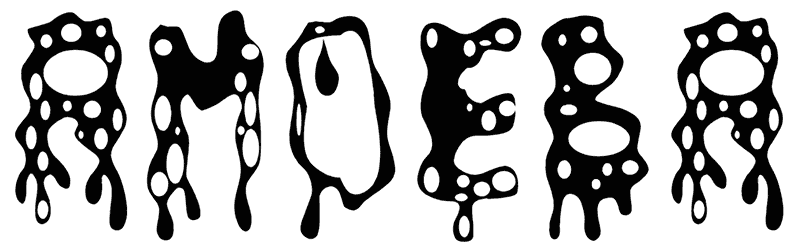
Amoeba Font
If you want a hair-raising and bloody mood from your text, don’t miss Amoeba by any means. This horror font has a slimy look to it and can be a cool choice for many scary themes like Halloween.
Set this slime font for your creative designs such as apparel, posters, video game titles, etcetera. Although Amoeba is limited to capitals and doesn’t have lowercase, numbers, or punctuation, it can still add a supernatural feeling to the design.